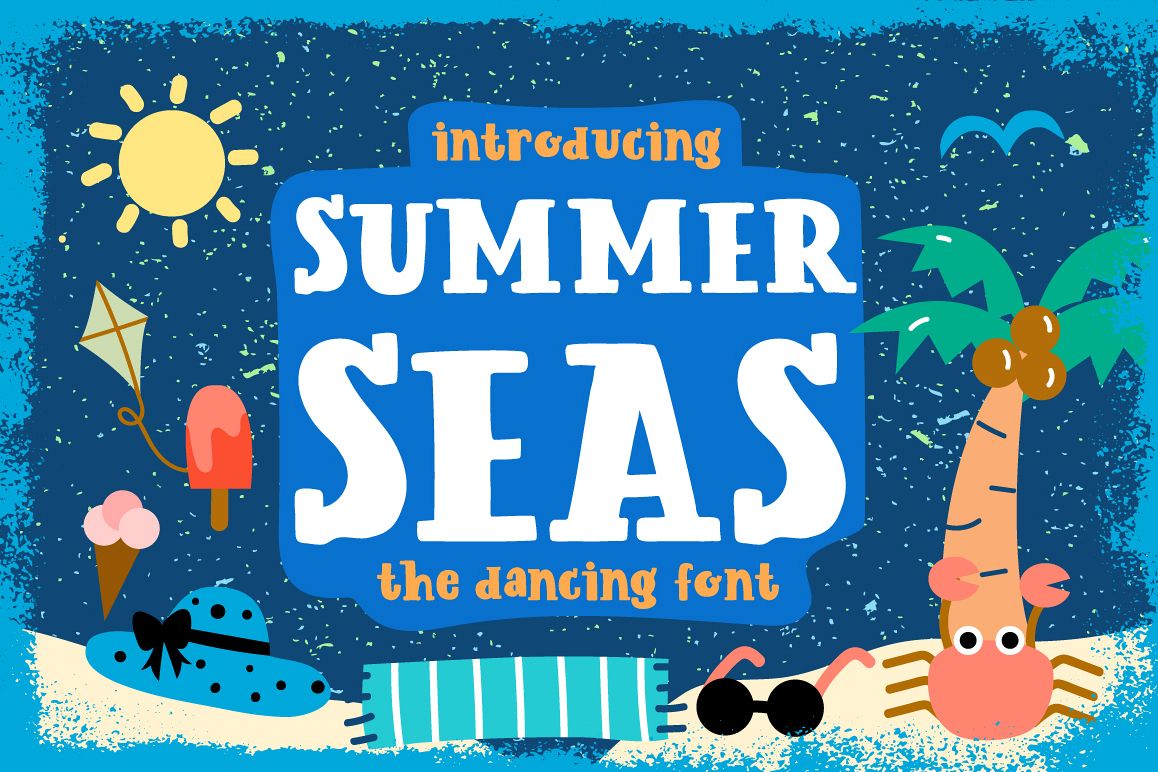
Summer Seas
SummerSeas-Regular
Hi There! Summer seas is a dancing font perfect for headline, title for children book, creative scrap book, poster, and everything you might think of! You also get summer beach icon as bonus for decorate your design!